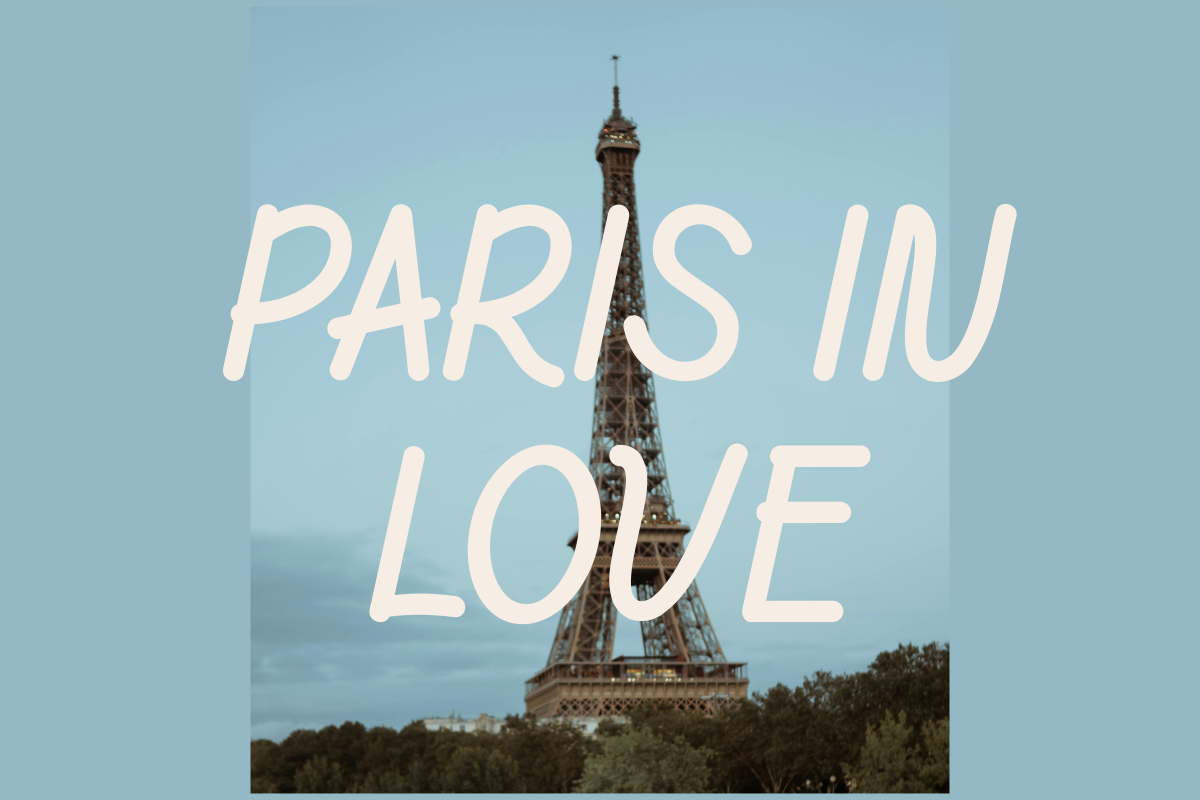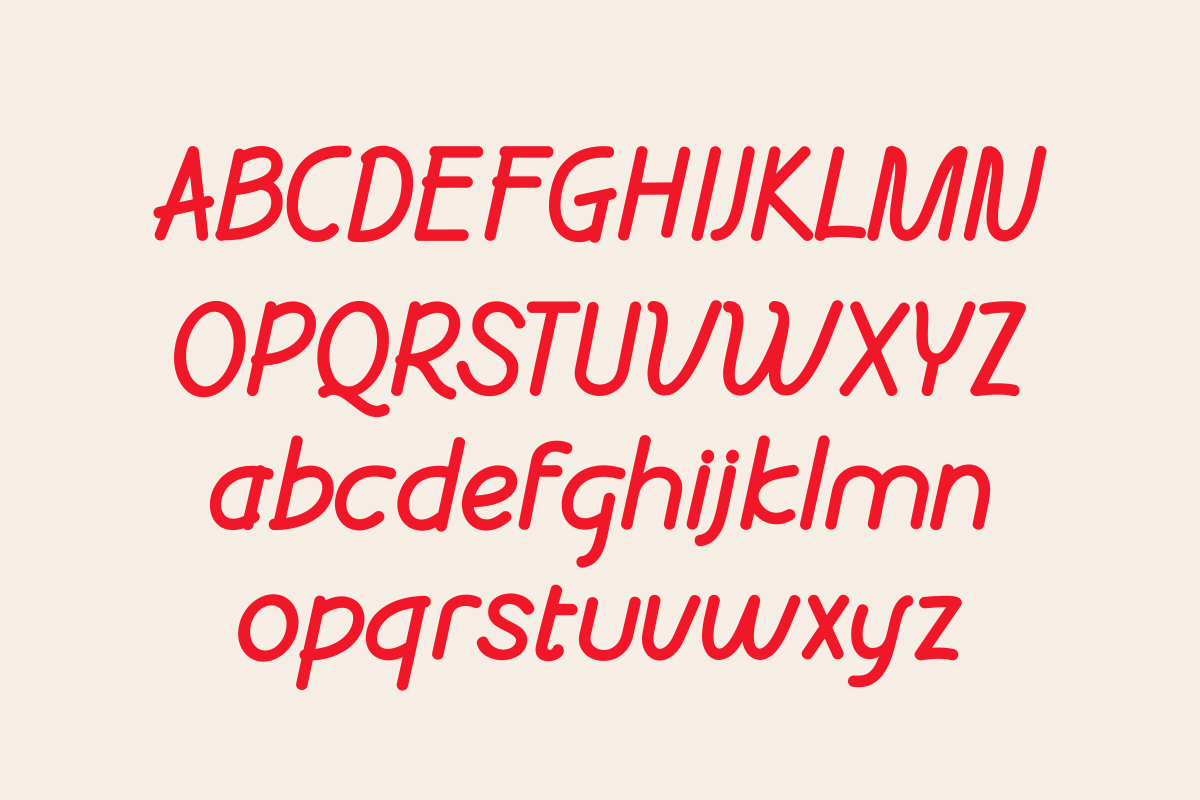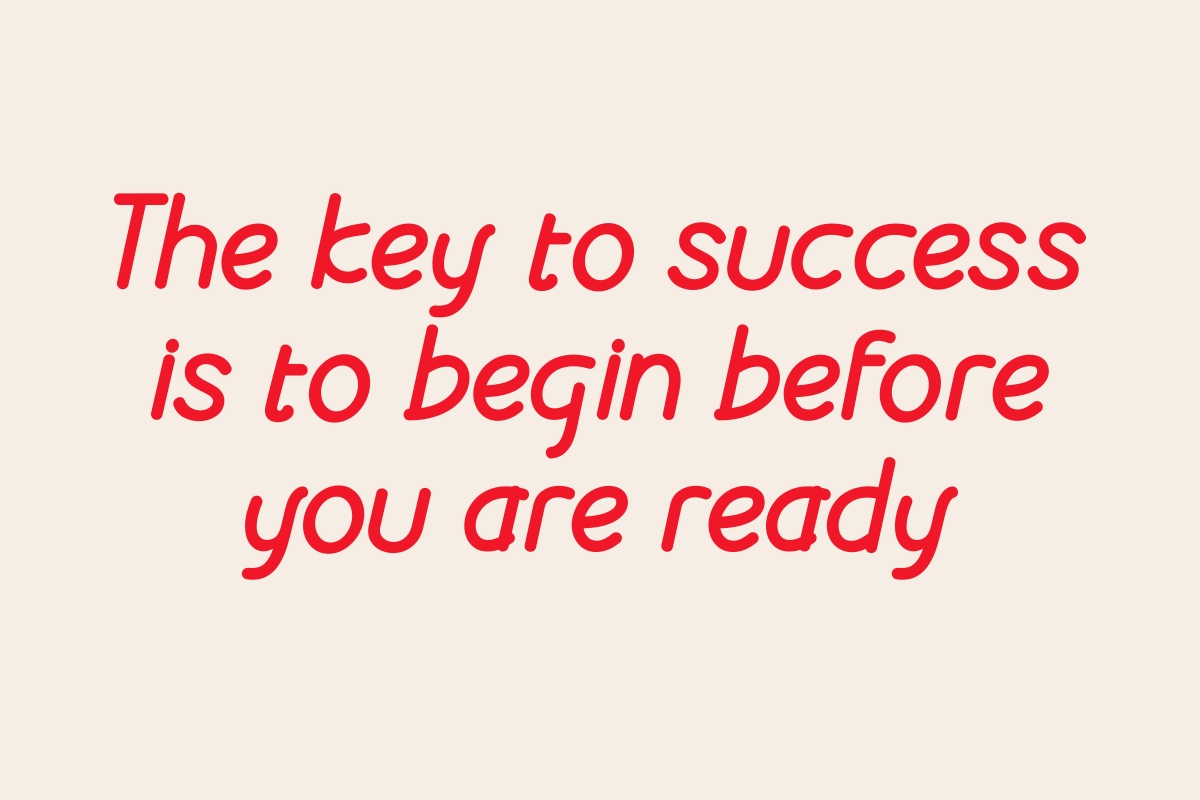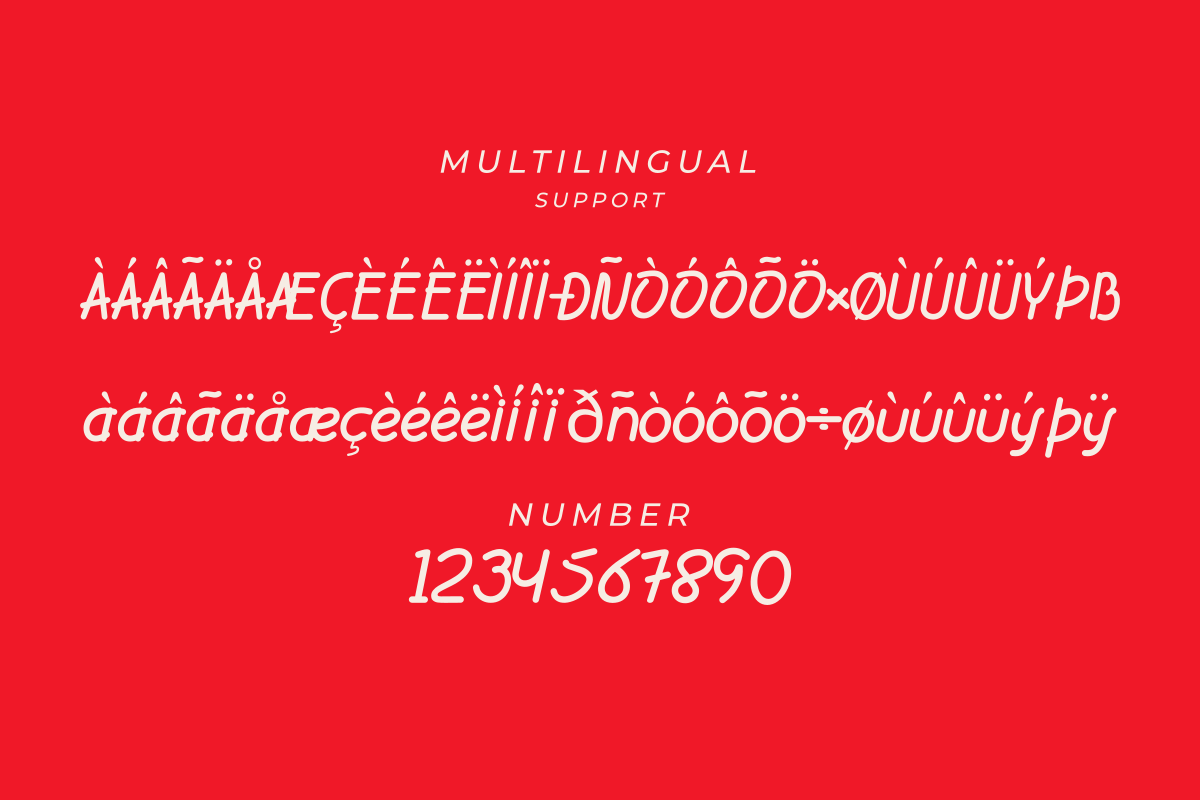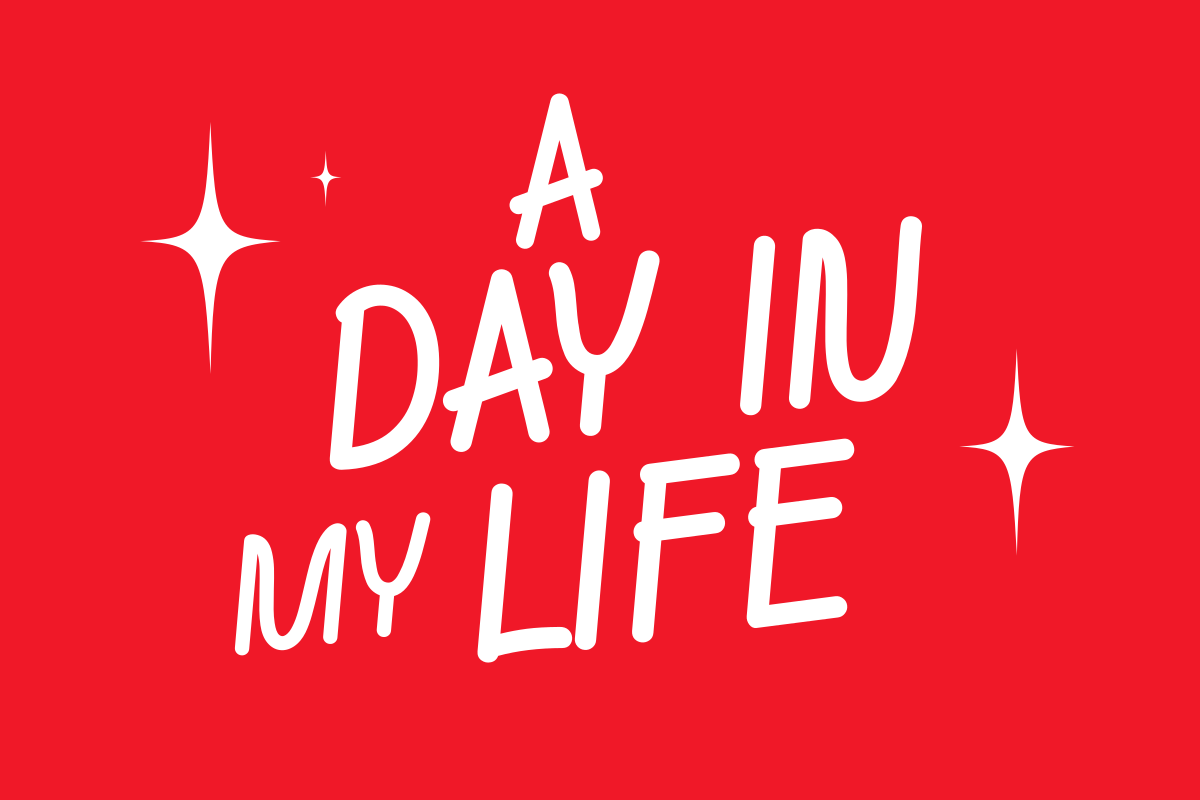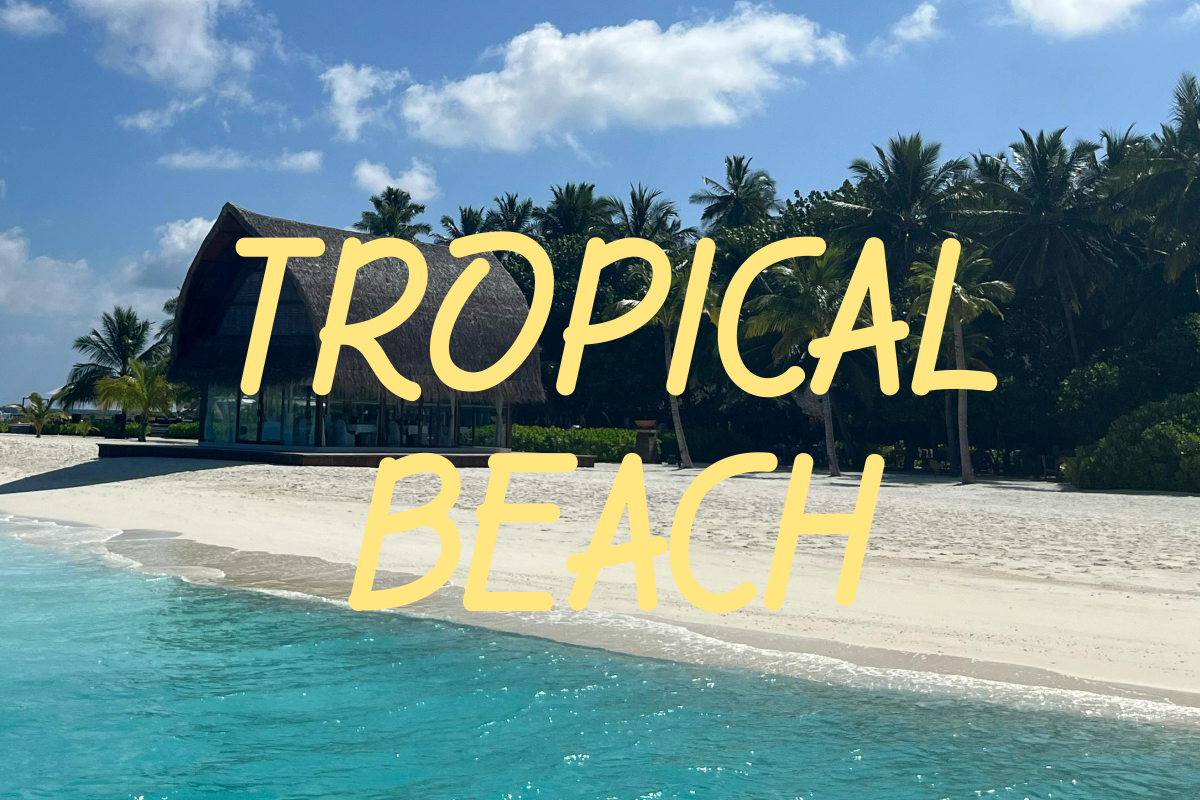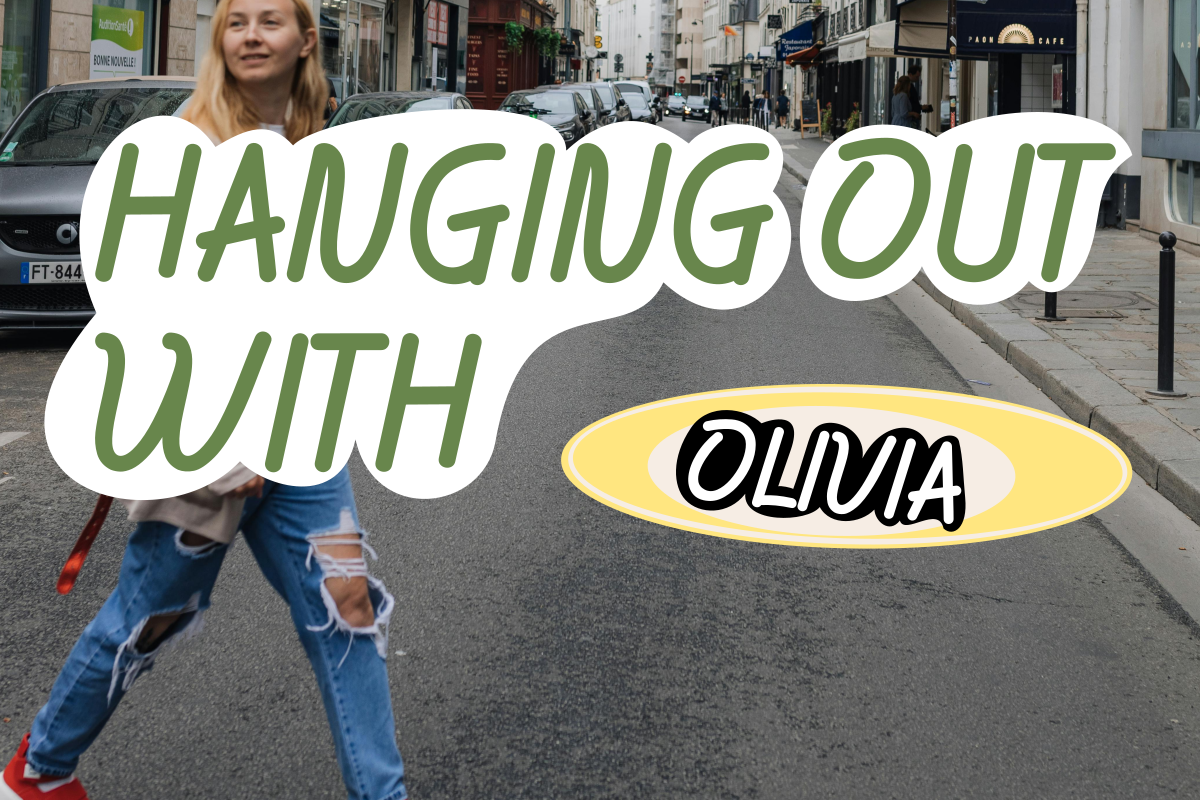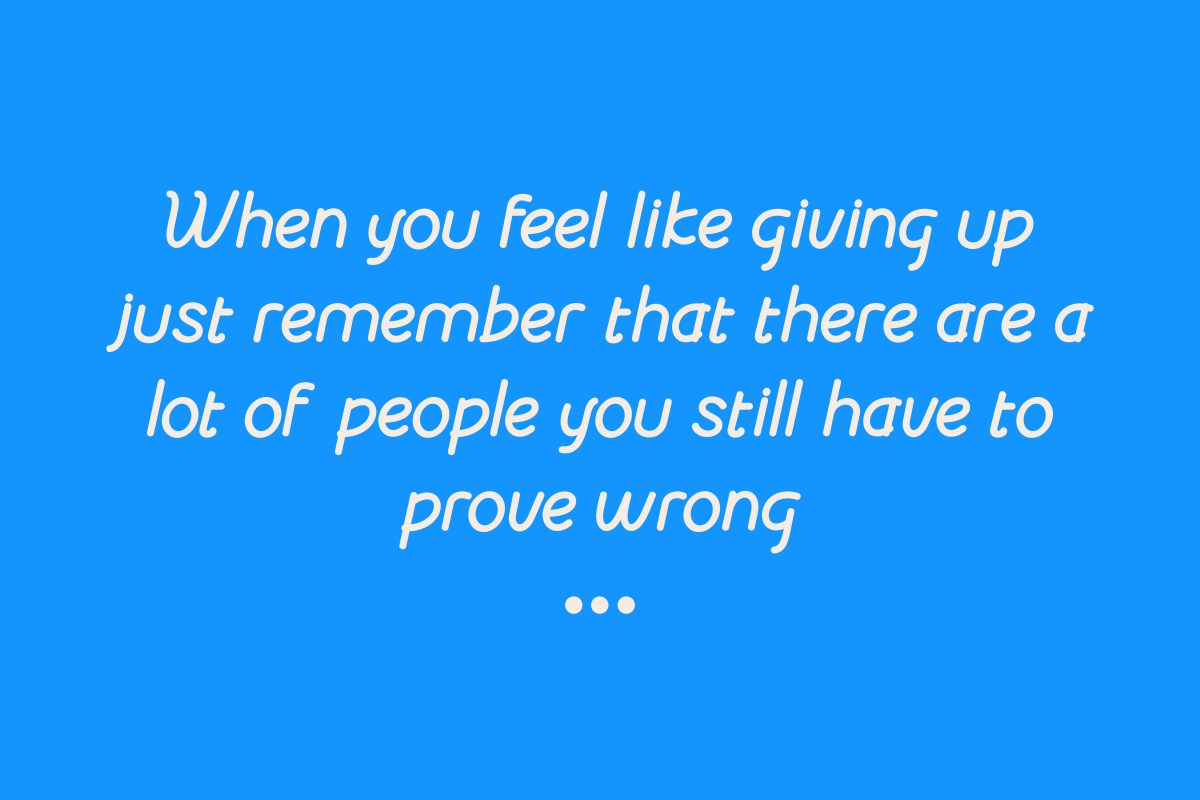
Aurea Valle
Aurea Valle is a display font that blends classic elegance with modern sophistication. Designed with refined details and bold character, it’s perfect for headlines, branding, editorials, and any design that seeks a striking visual presence. With its timeless aesthetic, Aurea Valle brings a touch of luxury to every project